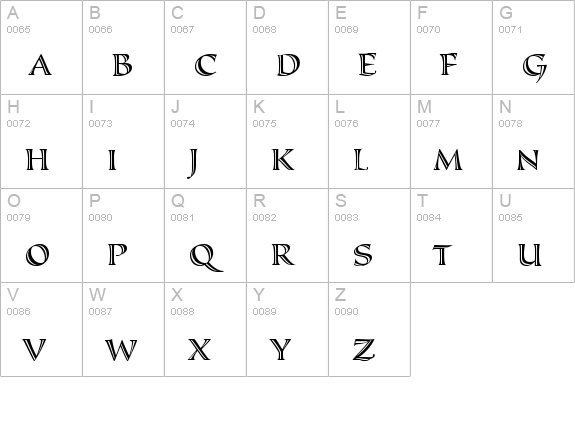
Introducing Sassafras Sx, a mesmerizing font that effortlessly blends elegance with a touch of vintage charm. With its intricate curves, delicate lines, and impeccable attention to detail, this font is sure to captivate any viewer's attention. Sassafras Sx is not only visually stunning, but it also offers a versatile range of uses. Whether you're designing a logo, creating a beautiful invitation, or crafting the perfect headline, this font will elevate your project to new heights of sophistication. What sets Sassafras Sx apart is not only its exquisite design, but also its accessibility. This incredible font is freely available to download at FontsMarket.com, allowing designers of all levels to experience its beauty without any financial constraints. With Sassafras Sx, the possibilities are endless. Its timeless appeal and timeless appeal make it the perfect companion for any creative endeavor. So, whether you're a seasoned professional or just starting your design journey, embrace the beauty of Sassafras Sx and let your creativity soar to new horizons.